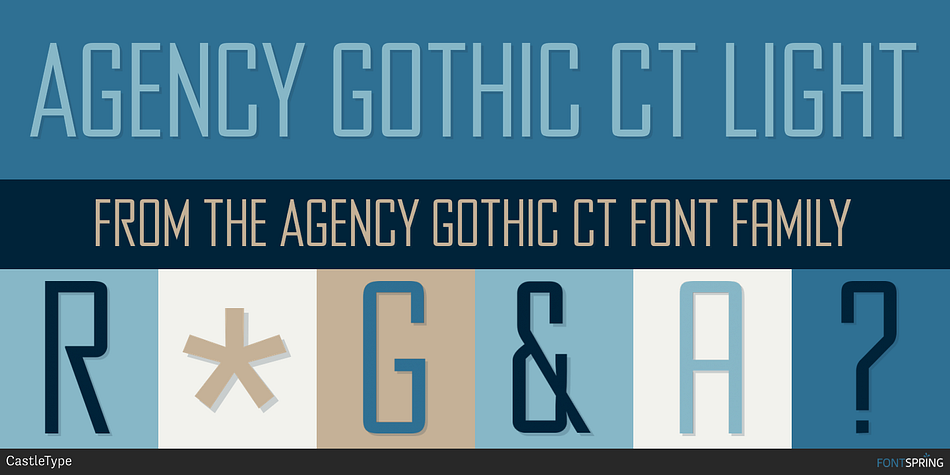
AGENCY GOTHIC CT LIGHT
Agency Gothic CT is a display sans font family. This typeface has six styles and was published by CastleType.
Agency Gothic was originally designed by Morris Fuller Benton in 1932 as a titling typeface. CastleType was commissioned to digitize two members of the family, Agency Gothic Condensed and Agency Gothic Open, by Publish magazine for their May 1990 redesign. Subsequently, other weights and styles were added to the CastleType revival, including Agency Gothic CT Bold and the very popular Agency Gothic CT Inline.